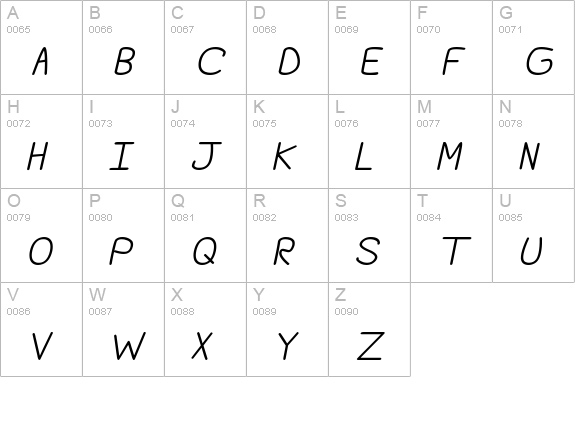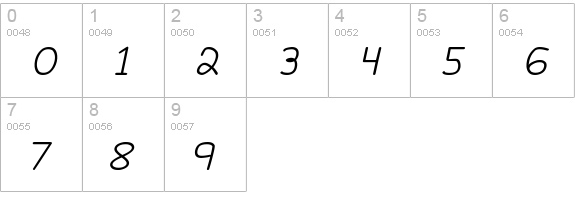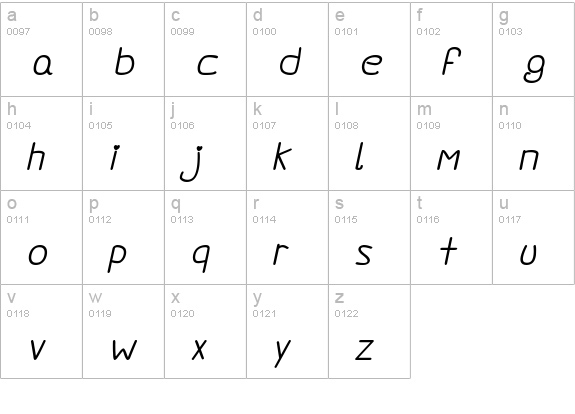
Darlin' Pop Font Details
Introducing Darlin' Pop, a whimsical and playful font that will add a touch of charm to any design project. With its unique blend of bold curves and delicate strokes, Darlin' Pop captures the essence of carefree and youthful energy. This free font is a delightful choice for any creative endeavor, whether it's designing eye-catching logos, creating captivating headlines, or crafting beautiful invitations. Darlin' Pop's versatility makes it a perfect fit for anything from children's books to fashion magazines and everything in between. With its wide range of character variations, including alternates and ligatures, Darlin' Pop offers endless possibilities for customization and creativity. Each letter is meticulously crafted to ensure seamless flow and legibility, making it a pleasure to read and a joy to work with. But the best part? Darlin' Pop is freely available to download at FontsMarket.com. Whether you're a professional designer or a creative enthusiast, you can now enjoy the benefits of this charming font without breaking the bank. Simply head over to FontsMarket.com and get ready to embark on a journey of creativity and imagination. So, why wait? Let your designs pop with the whimsical charm of Darlin' Pop. Download this free font today and watch your projects come to life with a touch of magic and enchantment.